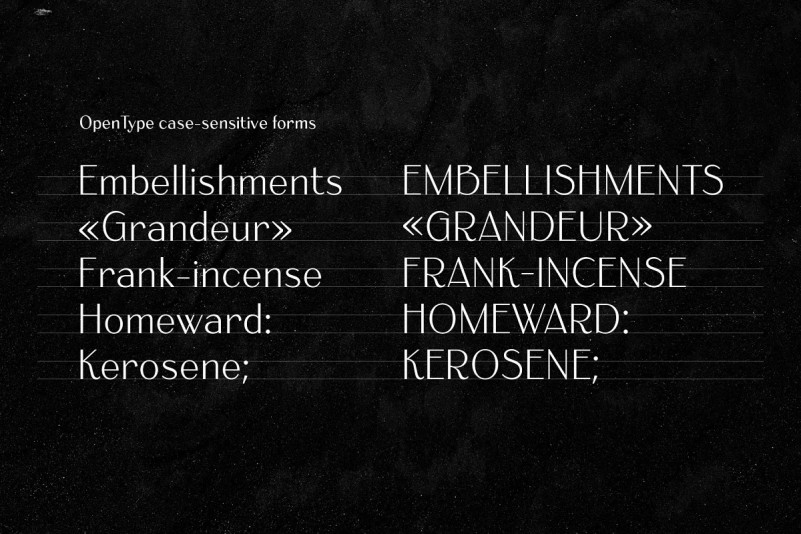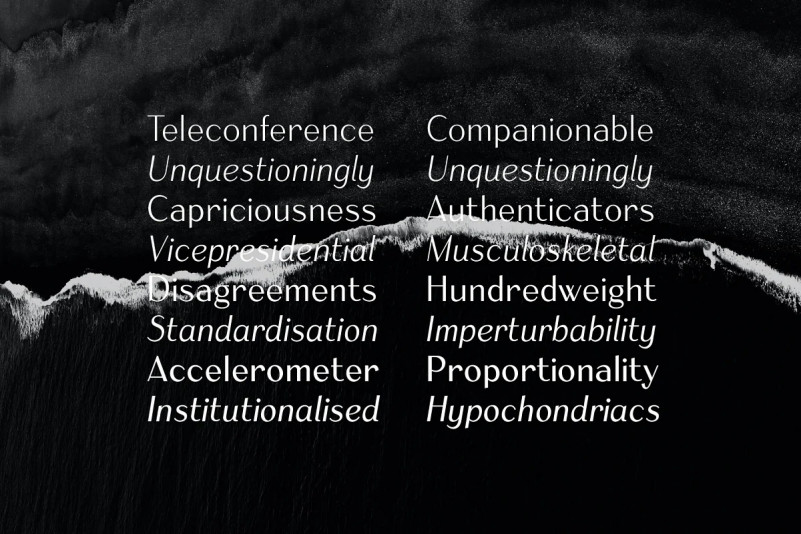
Armoire: Art Deco Sans Serif Font
This Font designed by Justin Penner is a chic and modern sans serif typeface that blends the elegant rationalism of Art Deco with the ornamental craftsmanship of Art Nouveau.
Designed for both display and text usage, Armoire features a subtle range of weights with accompanying italics, and a special set of case-sensitive uppercase letters.